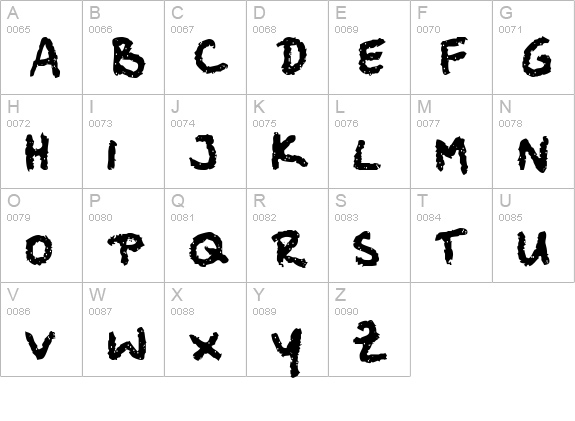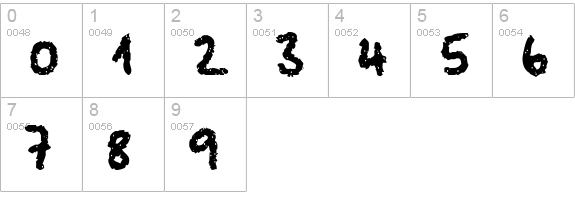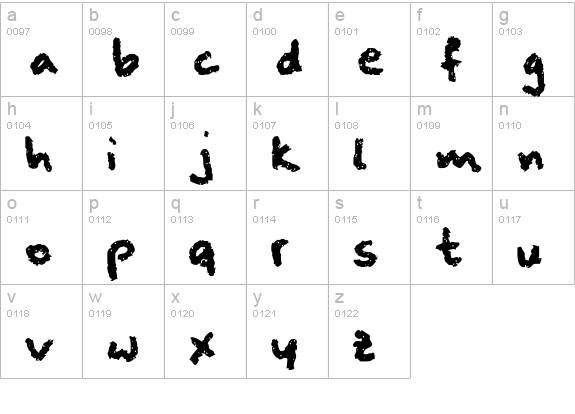
squeaky chalk sound Font Details
Introducing the mesmerizing Squeaky Chalk Sound Font, a captivating typeface that brings your designs to life with its unique and nostalgic essence. Designed to mimic the sound of a chalkboard, every letter in this font exudes a delightful squeak, making it a truly one-of-a-kind addition to your font collection. With its playful and whimsical appearance, Squeaky Chalk Sound Font evokes a sense of childhood wonder and brings back memories of writing on chalkboards, creating an instant connection with your audience. Whether you're working on a project for education, art, or simply want to add a touch of vintage charm to your designs, this font is the perfect choice. The versatility of Squeaky Chalk Sound Font allows it to be used in a wide range of applications. From headlines and logos to invitations and posters, every piece of text that is set in this font will have a unique and memorable touch. Let your creativity run wild as you explore the endless possibilities this font offers. And the best part? Squeaky Chalk Sound Font is available for free download at FontsMarket.com. We believe in making high-quality fonts accessible to everyone, and this font is no exception. Simply visit our website and get your hands on this enchanting typeface without spending a dime. Don't miss out on the opportunity to enhance your designs with this exceptional font. So, if you're looking to add a touch of nostalgia and playfulness to your designs, look no further than Squeaky Chalk Sound Font. Download it for free today at FontsMarket.com and let the captivating squeaks of this font bring your designs to life.